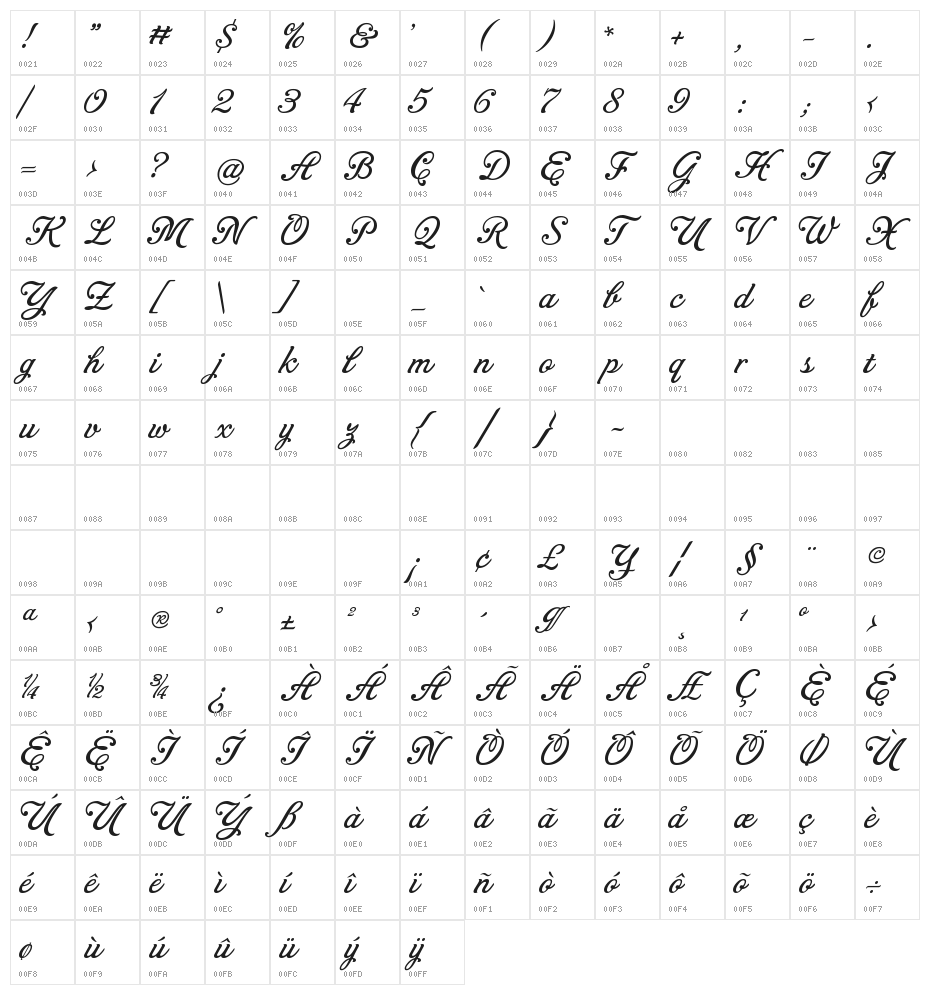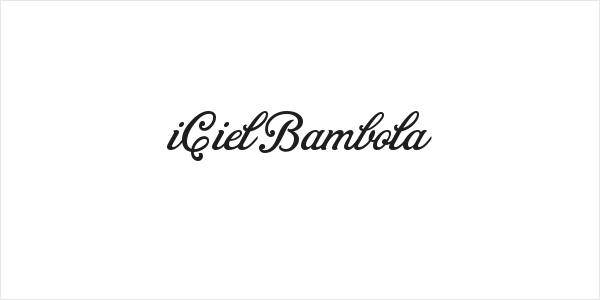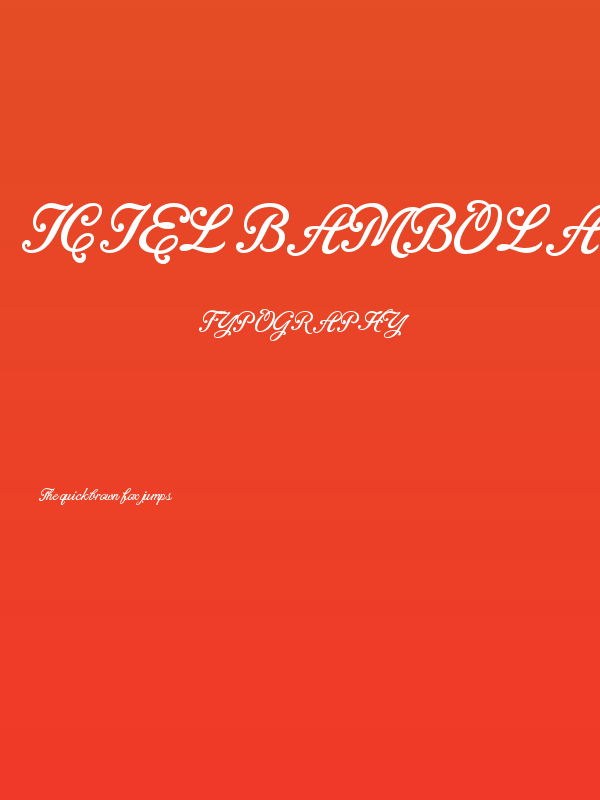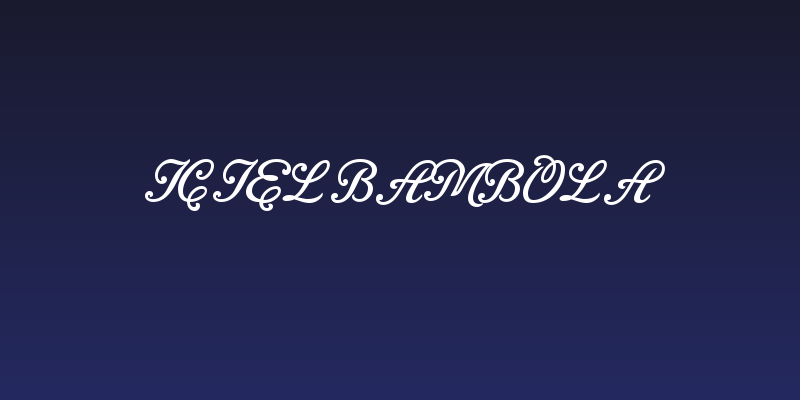
iCiel Bambola Font
iCiel Bambola Description
This elegant script font features a flowing, cursive style with intricate loops and swashes, creating a sense of sophistication and grace. The uppercase letters are adorned with decorative flourishes, while the lowercase letters maintain a smooth, connected appearance. The numerals and special characters are designed to complement the overall aesthetic, making it suitable for formal invitations, branding, and decorative purposes. The font's consistent stroke weight and balanced proportions enhance readability while maintaining its artistic flair.
| Proposed Projects | Ideal for wedding invitations, luxury branding, greeting cards, and decorative signage. |